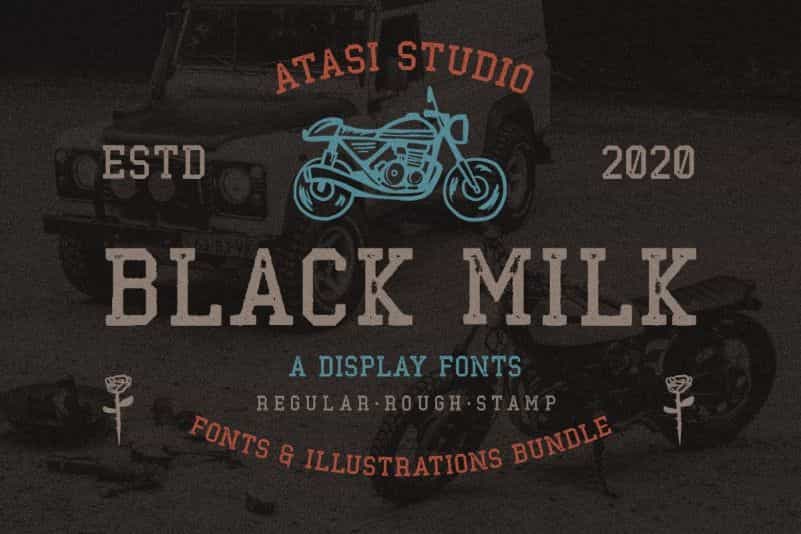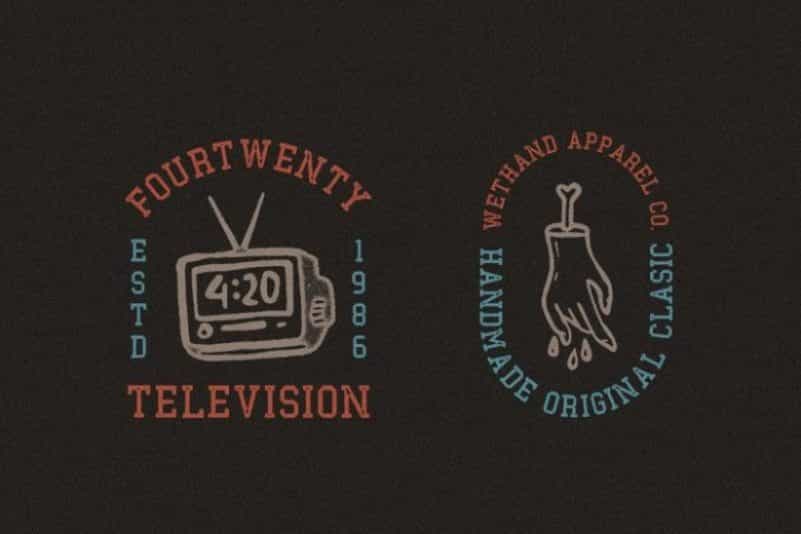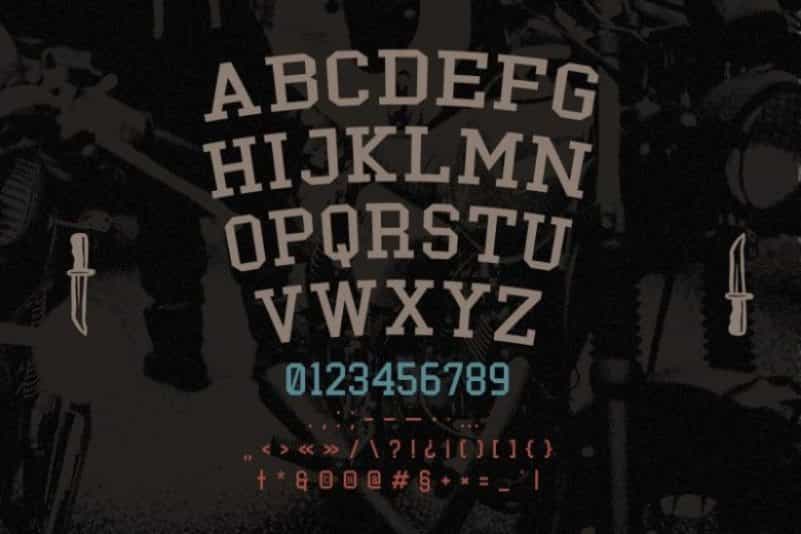
Discover Black Milk Display Font, part of the Display Retro Vintage collection—a versatile and unique font perfect for adding a personal touch to your projects. Download it for free and enjoy crafting designs with style, from invitations to social media posts. This font is available exclusively for personal use, giving you the freedom to create without limits. Unlock your creativity with Black Milk Display Font today!
BLACK MILK is a font with the retro & vintage style. BLACK MILK is now and exclusively for you ready-to-use in your logo designs, music projects & social media posts, event poster, brand imagery, product packaging and all other graphic design needs. In addition to that please don’t hesitate to drop me a line if you have any issues or queries.